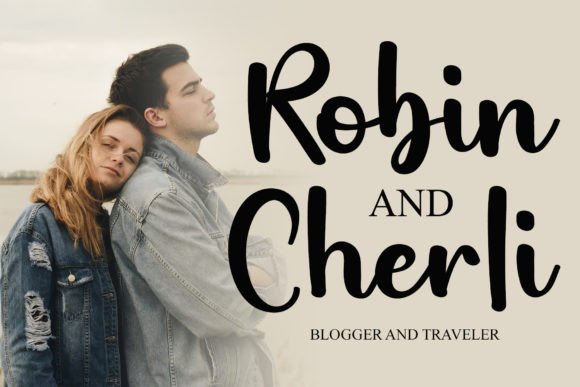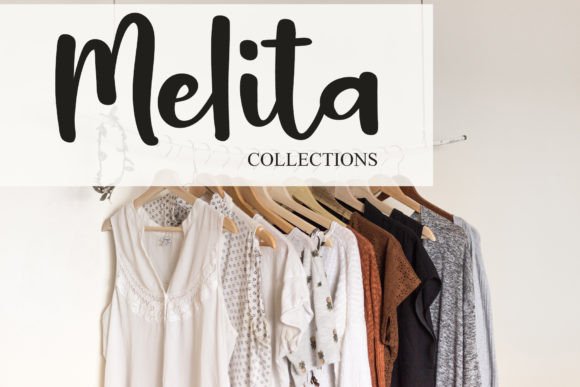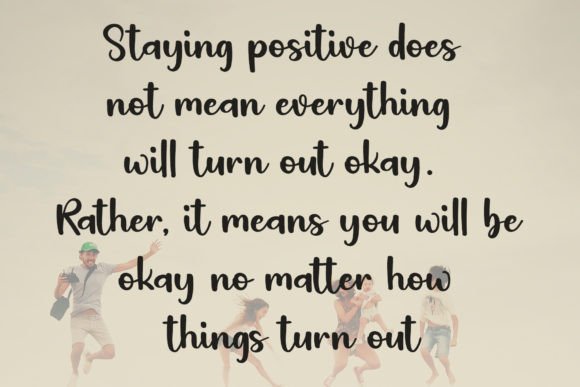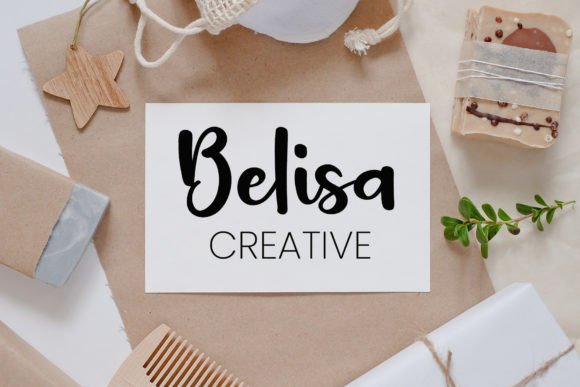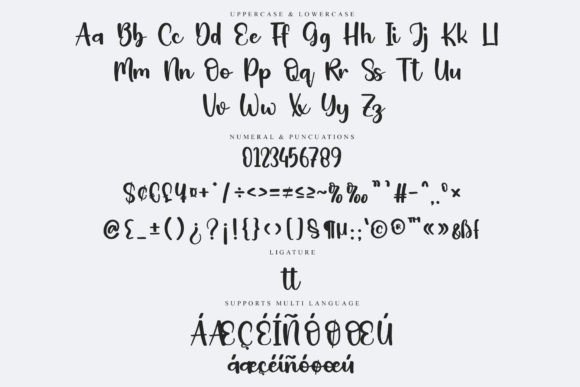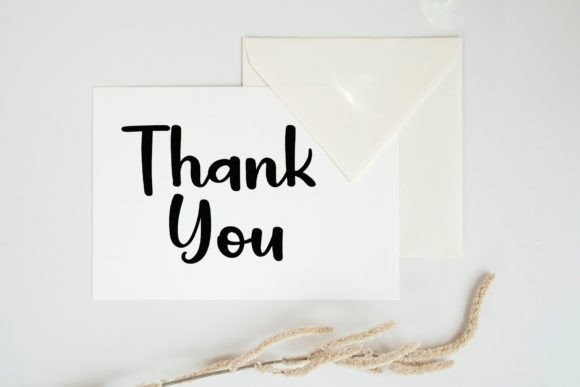
Casting Font: Elevate Your Designs with Elegance and Sophistication
In the world of typography, fonts play a crucial role in conveying the tone and personality of a design. For designers and crafters seeking to add a touch of elegance and sophistication to their projects, Casting Font is an excellent choice. This stylish and dainty script font is perfect for a wide range of applications, from logos and branding projects to labels, photography, watermarks, and special events.
What is Casting Font?
Casting Font is a beautiful script font that exudes refinement and luxury. Its delicate strokes and intricate details make it an ideal choice for designers who want to create visually stunning designs that stand out from the crowd. Whether you’re working on a logo, brochure, or social media graphics, Casting Font is sure to impress.
Key Features of Casting Font
- Elegant and Refined: Casting Font boasts a sophisticated and elegant design that adds a touch of luxury to any project.
- Versatile: This font is suitable for a wide range of applications, from print materials to digital designs.
- Easy to Read: Despite its delicate nature, Casting Font is easy to read, making it perfect for body text and headlines.
- Highly Customizable: With Casting Font, you can experiment with different colors, sizes, and styles to create unique and eye-catching designs.
Use Cases for Casting Font
Casting Font is an incredibly versatile font that can be used in various design projects. Here are some use cases to get you started:
- Logos and Branding: Create a lasting impression with a custom logo that showcases your brand’s personality and values.
- Labels and Packaging: Add a touch of elegance to your product labels and packaging with Casting Font.
- Photography: Use Casting Font to create beautiful watermarks, captions, and titles for your photos.
- Special Events: Make your event invitations, programs, and signage stand out with this stunning script font.
- Digital Designs: Incorporate Casting Font into your social media graphics, blog posts, and website designs to add a touch of sophistication.
Tips for Using Casting Font Effectively
To get the most out of Casting Font, here are some tips to keep in mind:
- Pair it with a Sans-Serif Font: Combine Casting Font with a sans-serif font to create a beautiful contrast and add visual interest to your design.
- Experiment with Colors: Try out different colors and gradients to find the perfect combination that matches your brand’s aesthetic.
- Pay Attention to Spacing: Make sure to adjust the spacing between letters and lines to ensure your text is easy to read and visually appealing.
- Use it Sparingly: While Casting Font is beautiful, it’s best to use it sparingly to avoid overwhelming your design.
Casting Font is a stunning script font that can elevate your designs to new heights. Its elegance, sophistication, and versatility make it an excellent choice for designers and crafters seeking to add a touch of luxury to their projects. With its wide range of use cases and tips for effective use, Casting Font is sure to become a staple in your font collection.